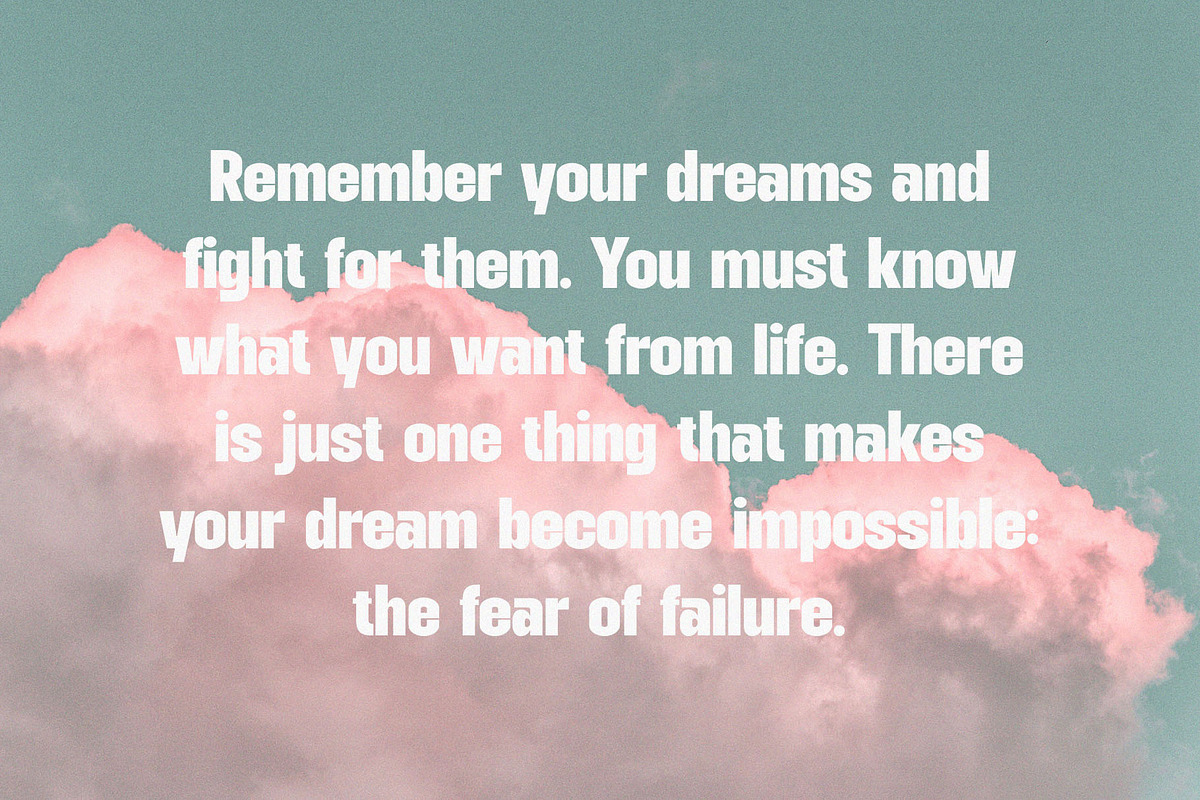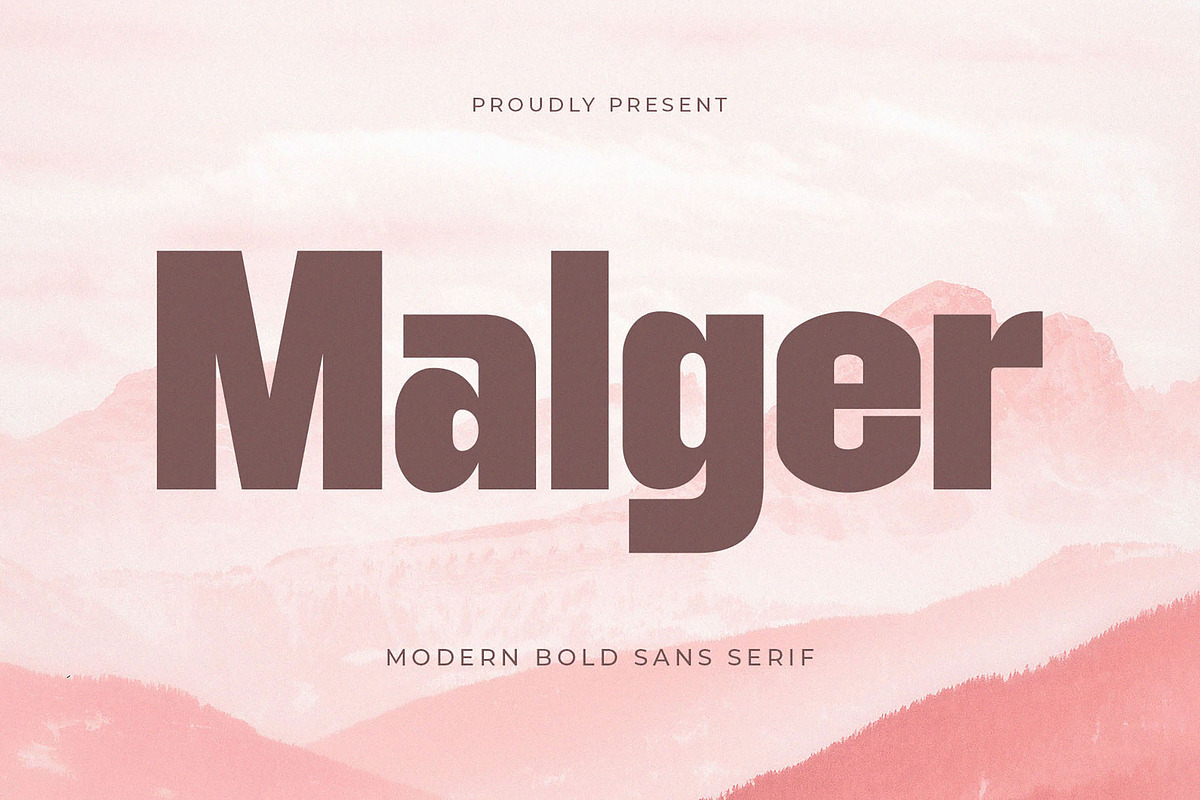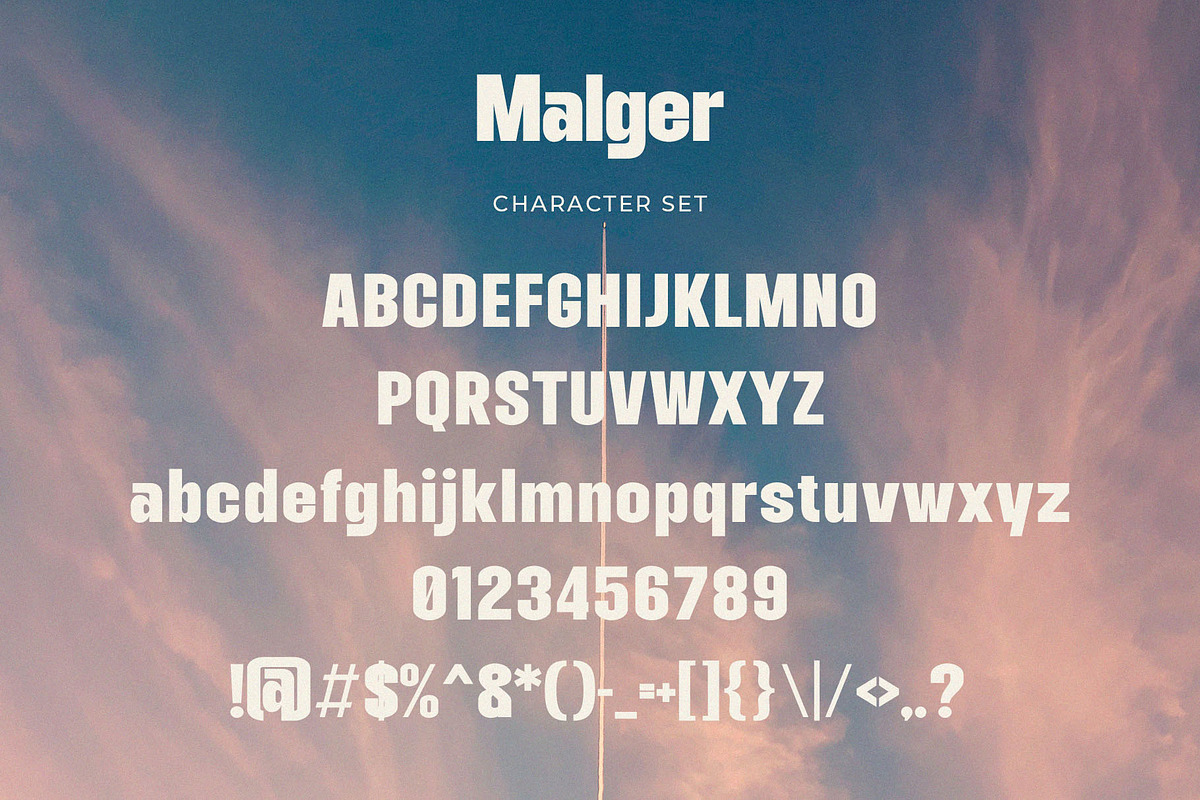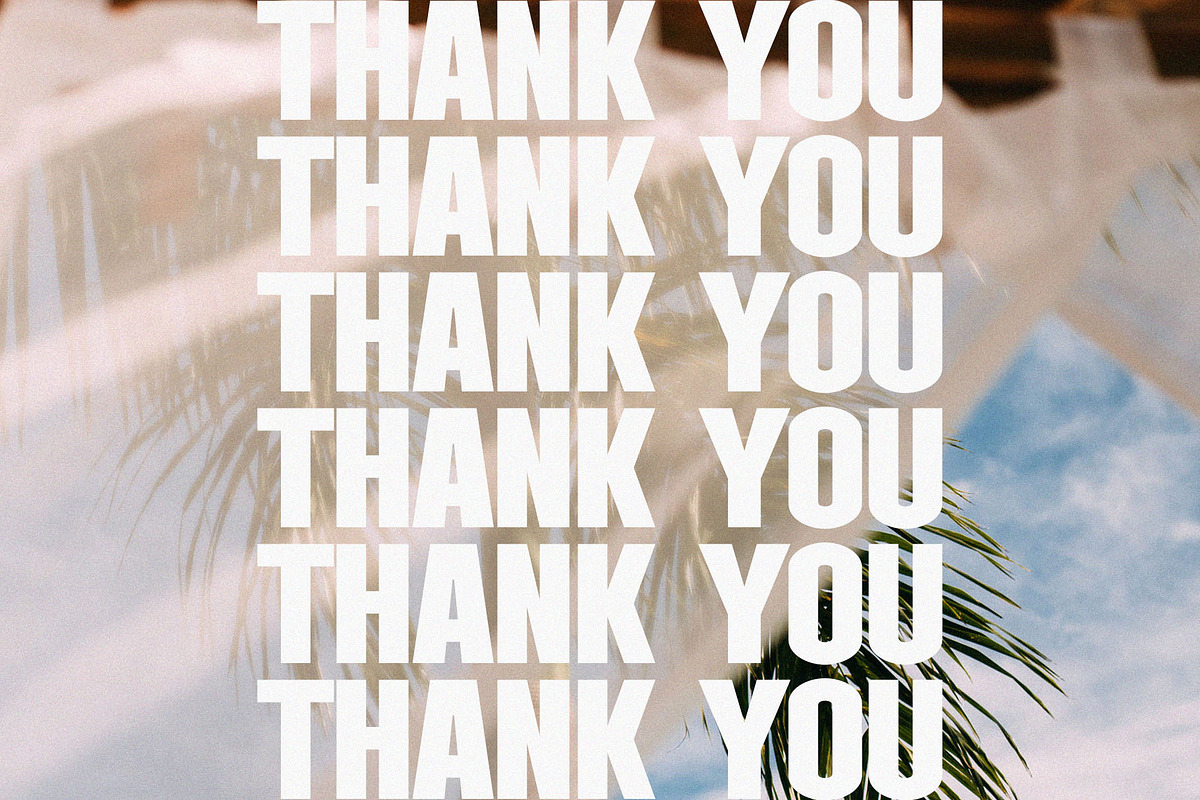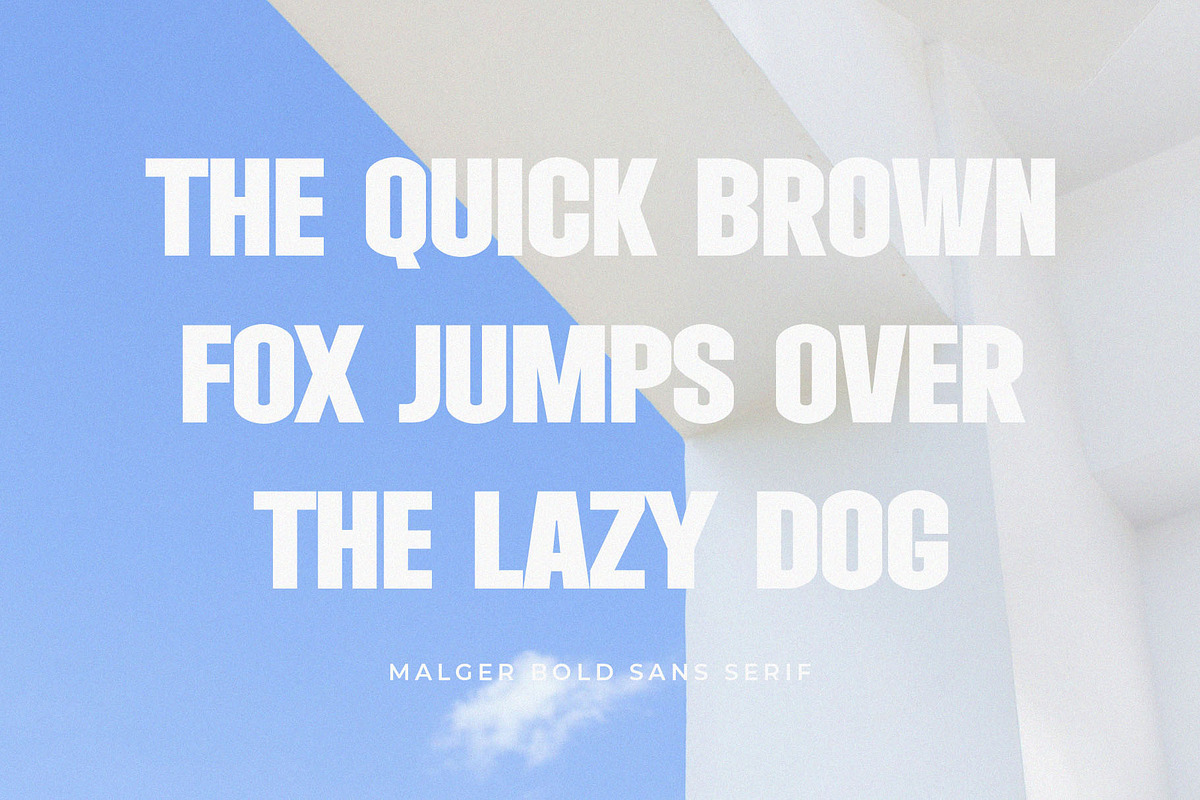
Malger - Modern Sans Serif
Introducing our new Malger, modern sans serif font with elegant style this is perfect for branding, logos, invitation, magazines, product packaging and more.